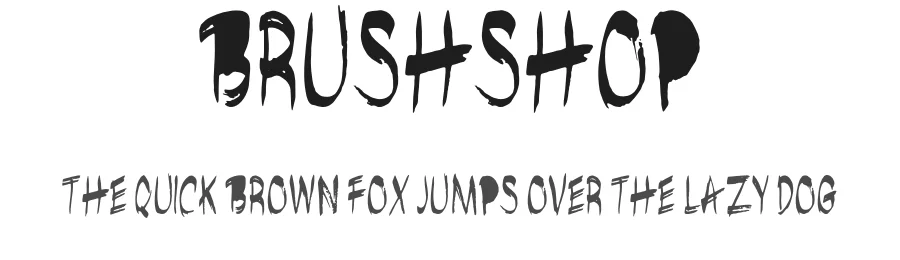
About Alita Brush Font
Alita Brush is typeface with brush touch.
| Designer | Sugeng Riyanto a.k.a Inovatype Studio |
Alita Brush Font is a script font that shines as a display or heading face. Pair it with a clean sans-serif or serif font for body text β the contrast creates a clear hierarchy while the two styles stay balanced and easy to read.